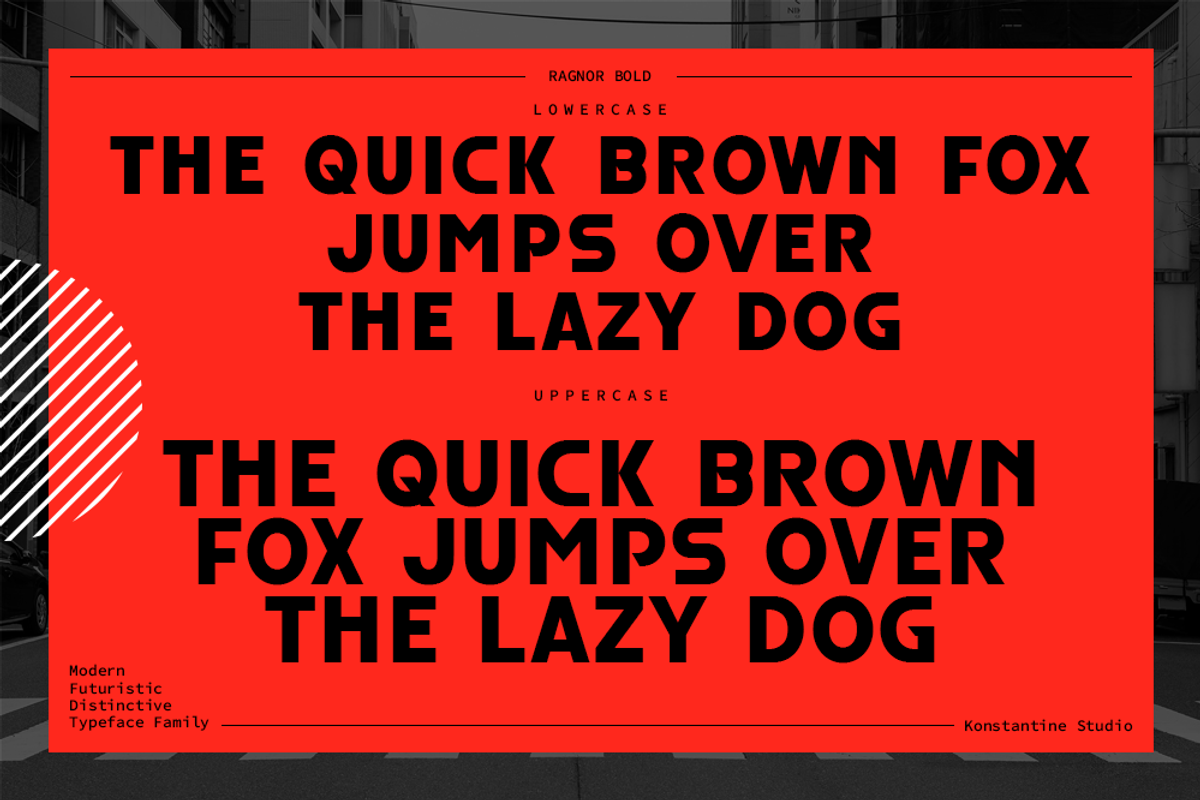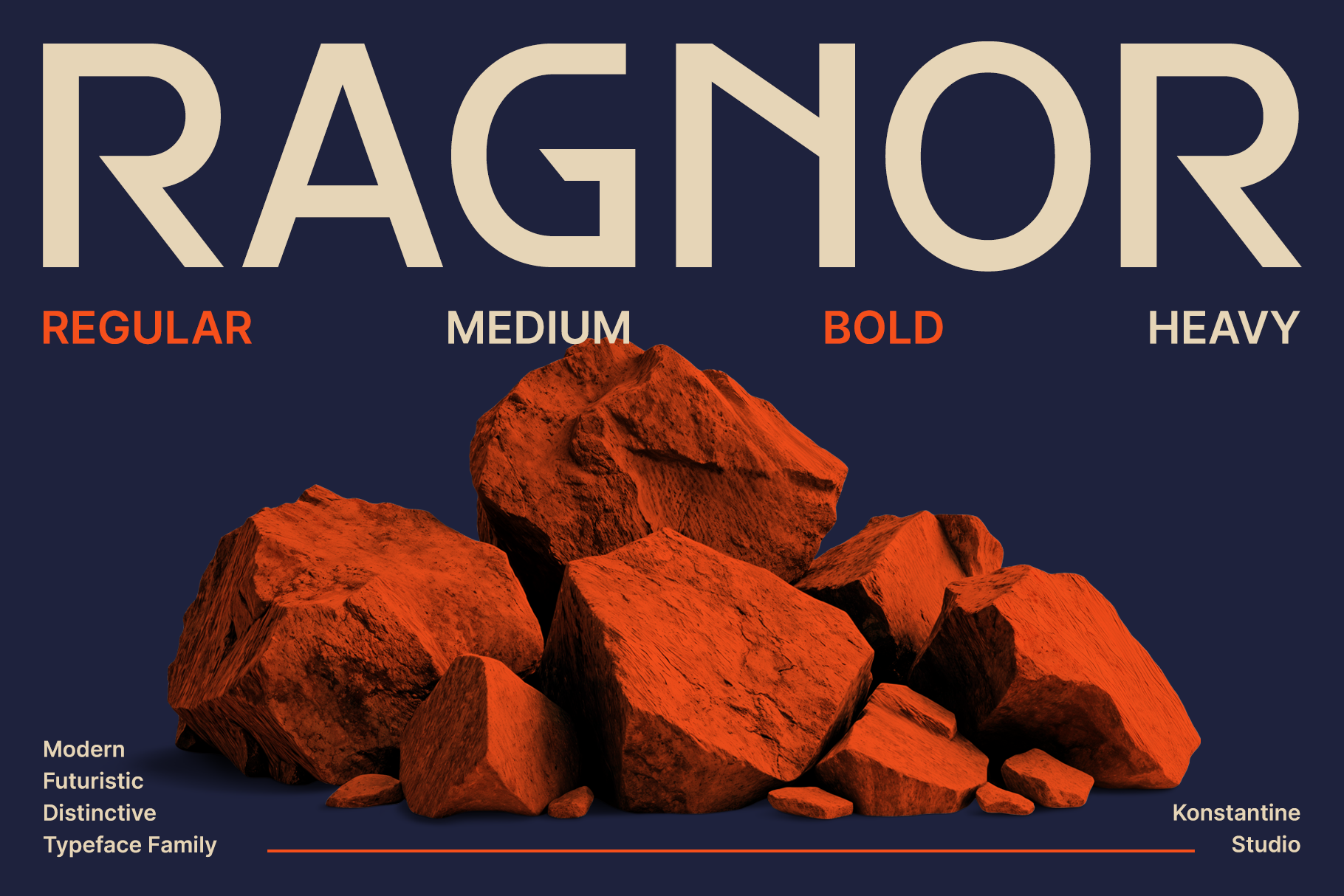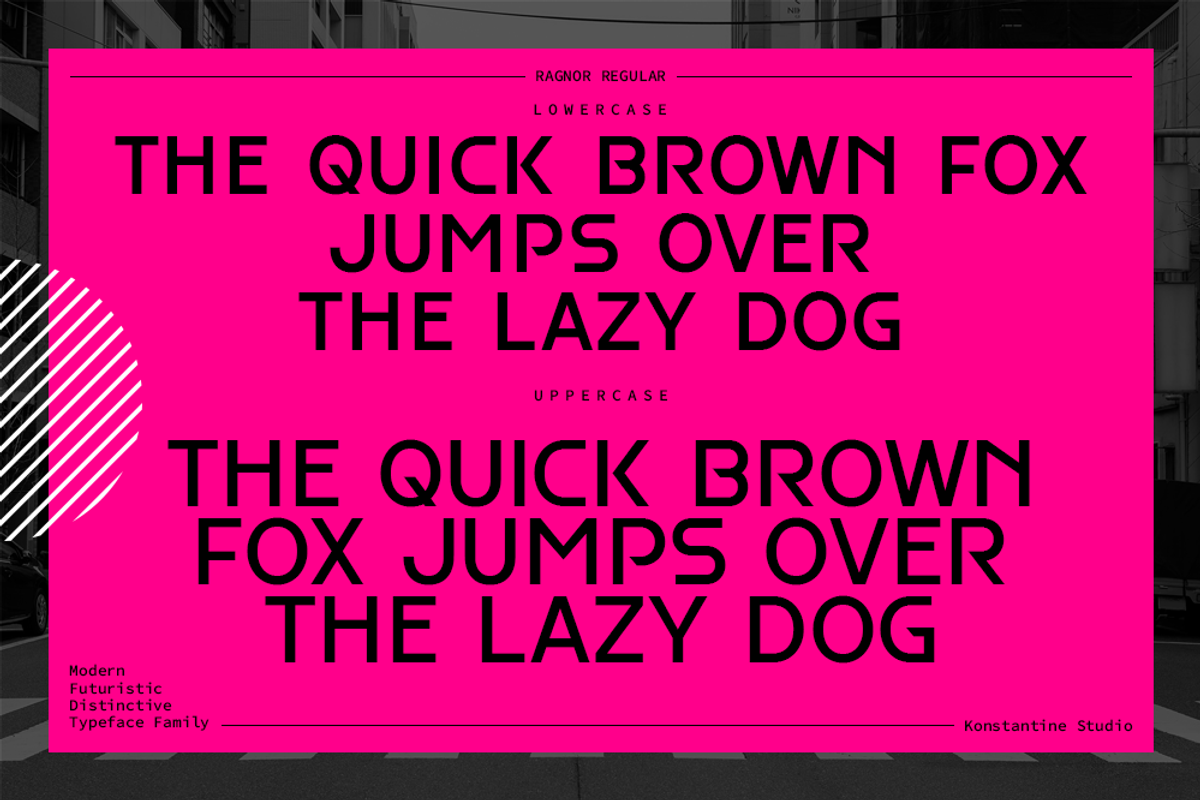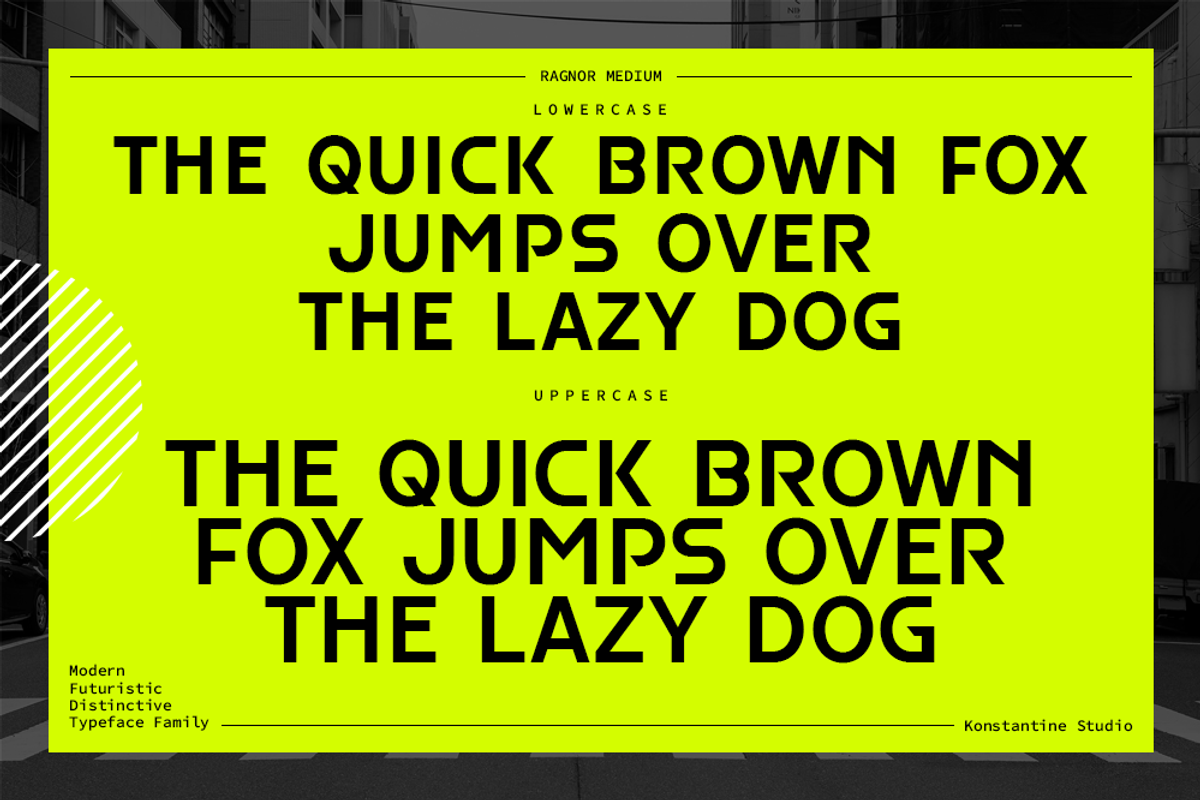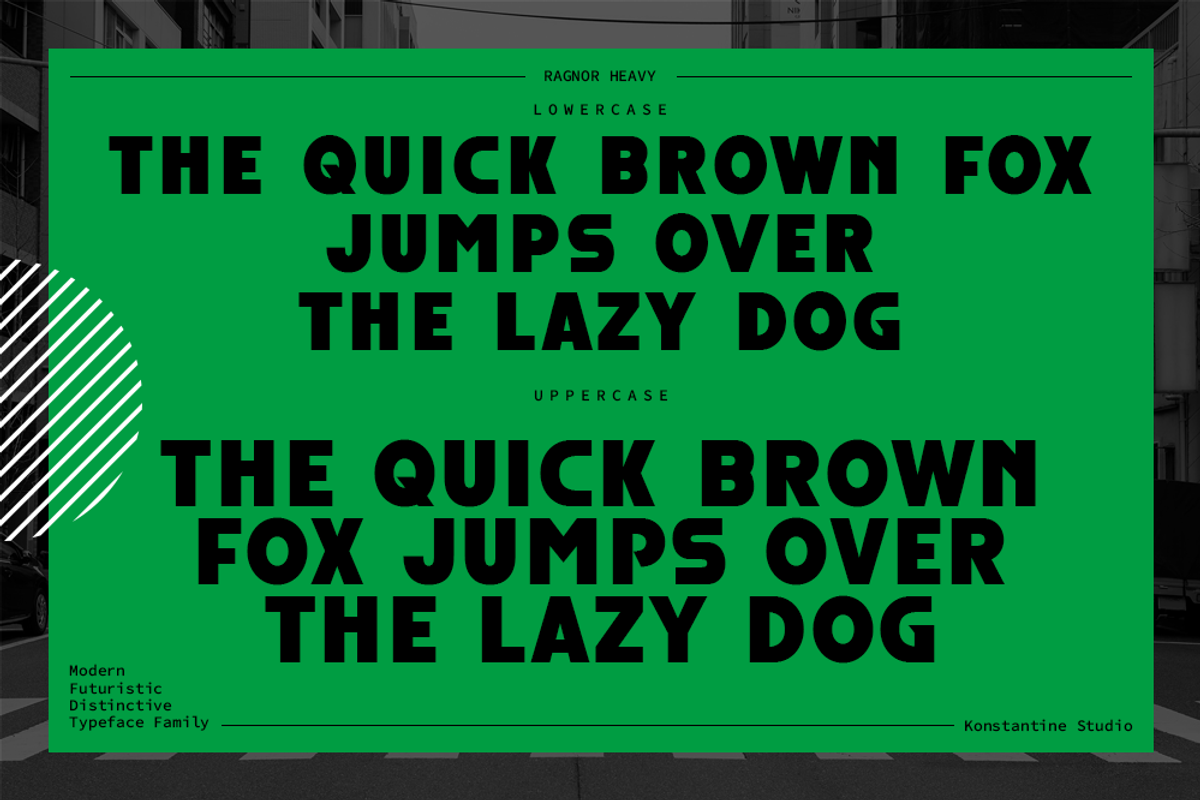
Ragnor - Futuristic Y2K Fonts
Step into the future with RAGNOR, a cutting-edge sans serif typeface meticulously crafted for the metaverse generation. Inspired by the sleek aesthetics of digital landscapes and the relentless pursuit of innovation, RAGNOR embodies the spirit of tomorrow.
This isn't just a font; it's a visual statement. RAGNOR's clean lines and futuristic form factor make it the perfect choice for brands and creatives looking to establish a strong, forward-thinking identity. Whether you're designing for websites, apps, games, or marketing materials, RAGNOR will ensure your message resonates with a modern audience.